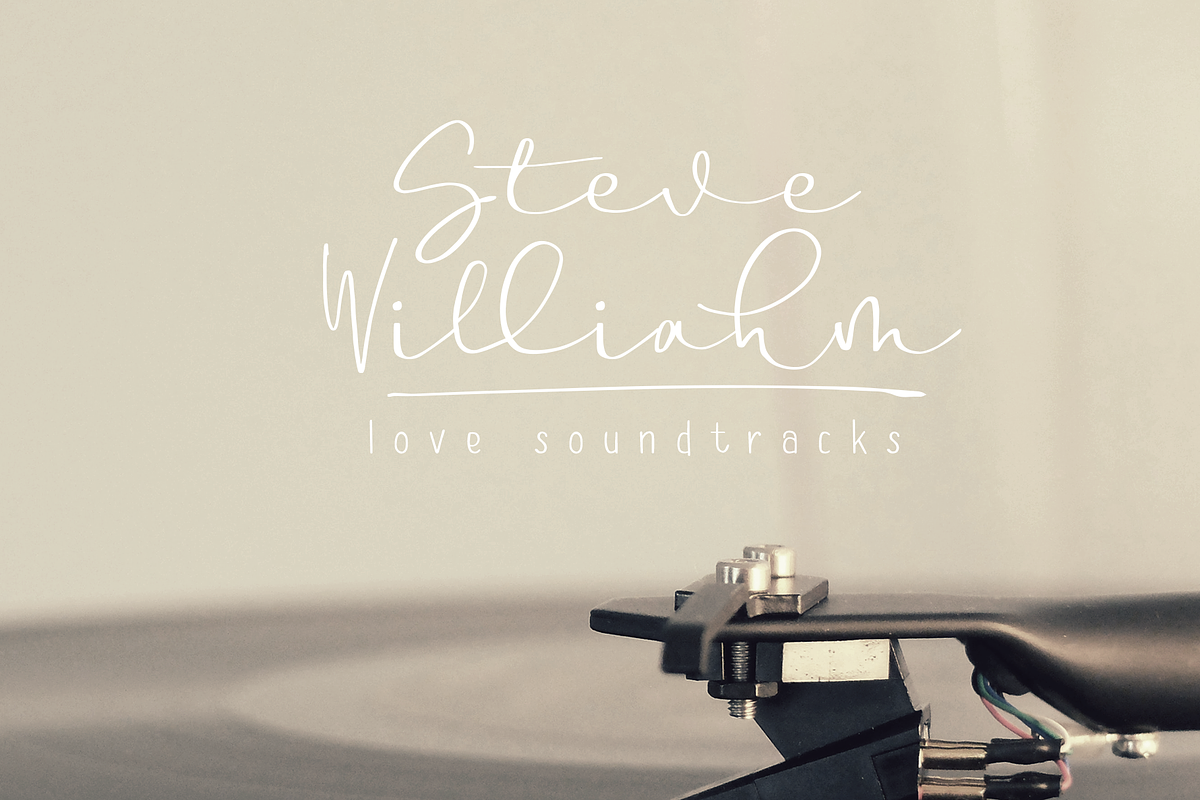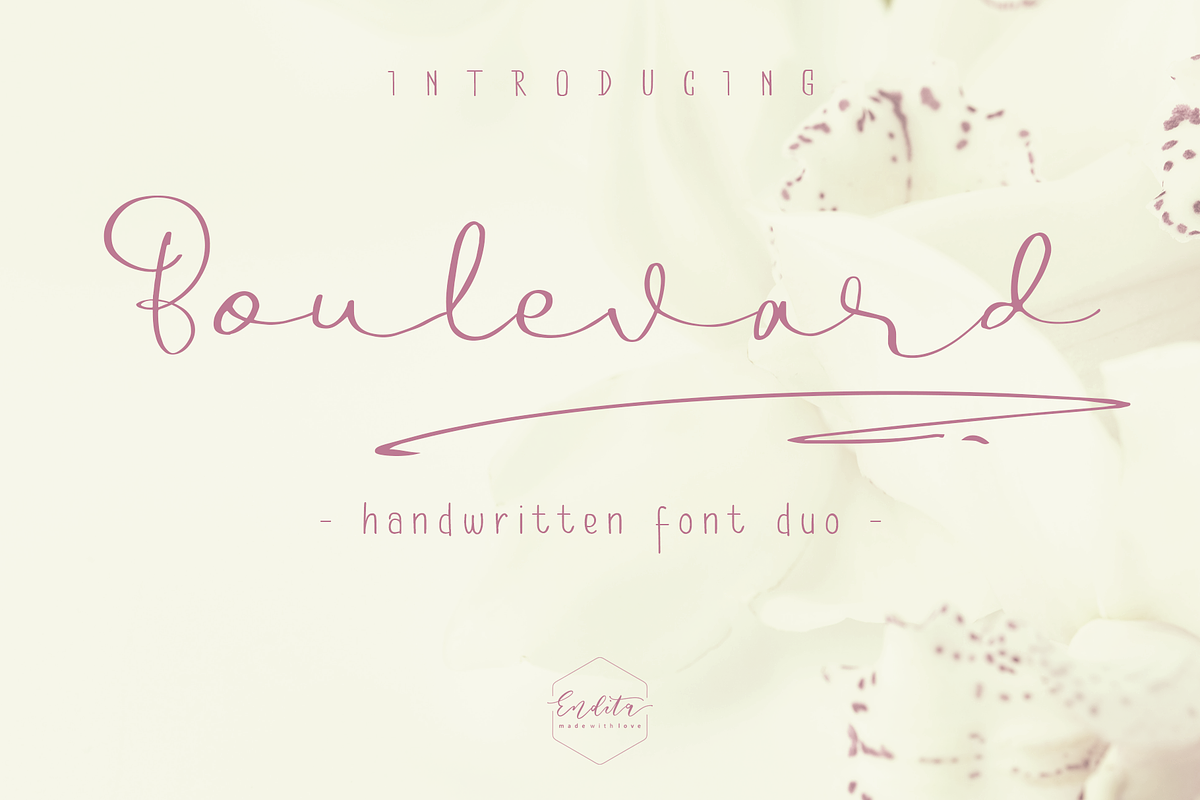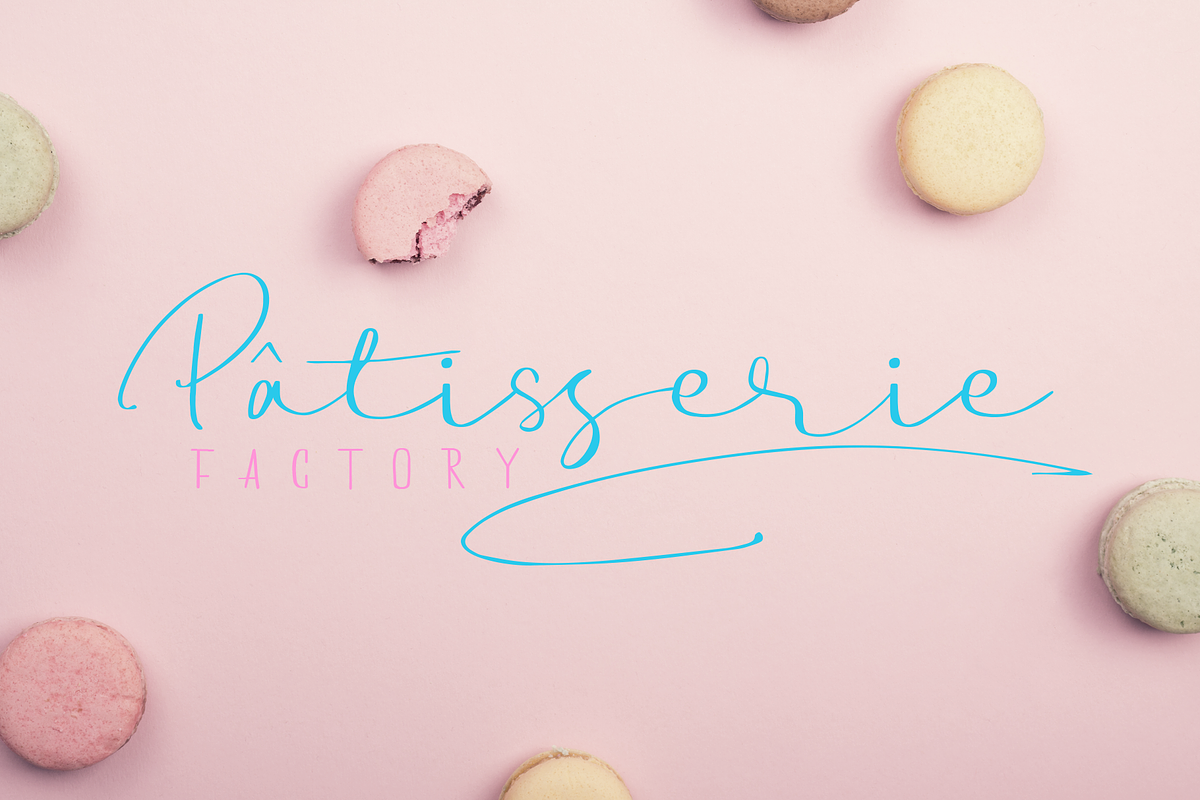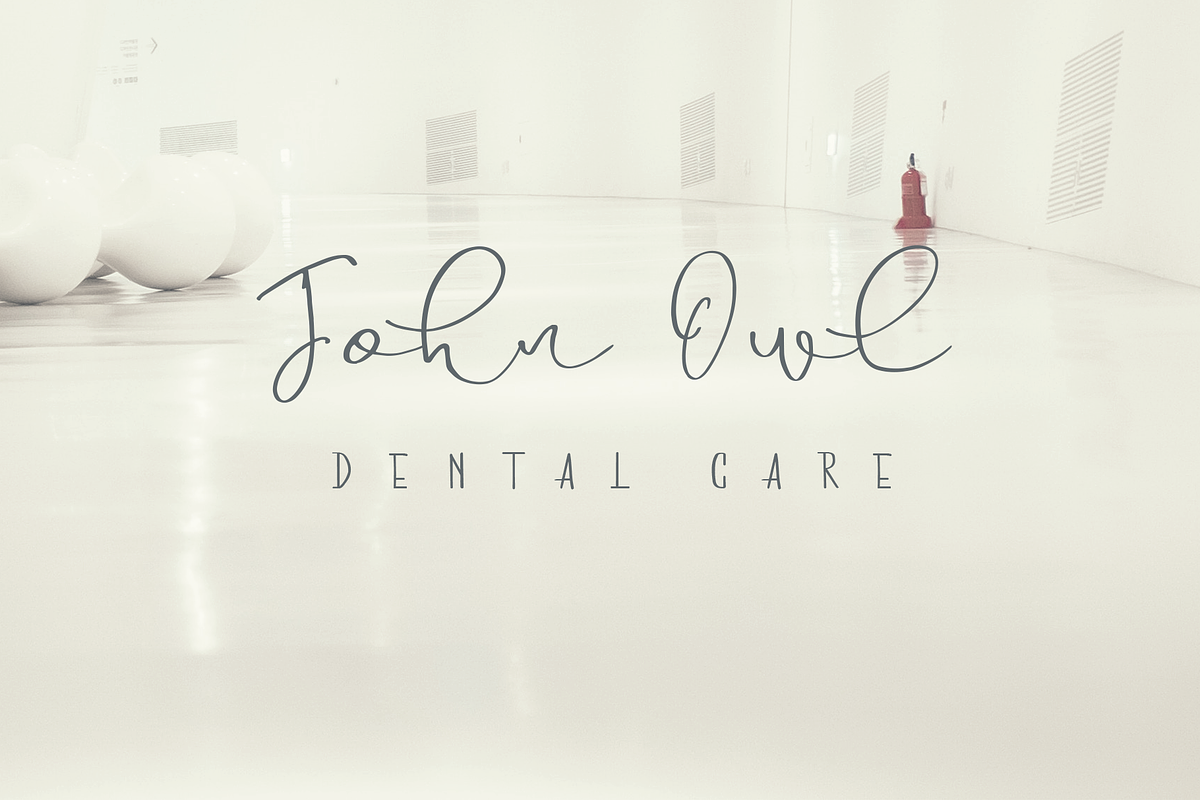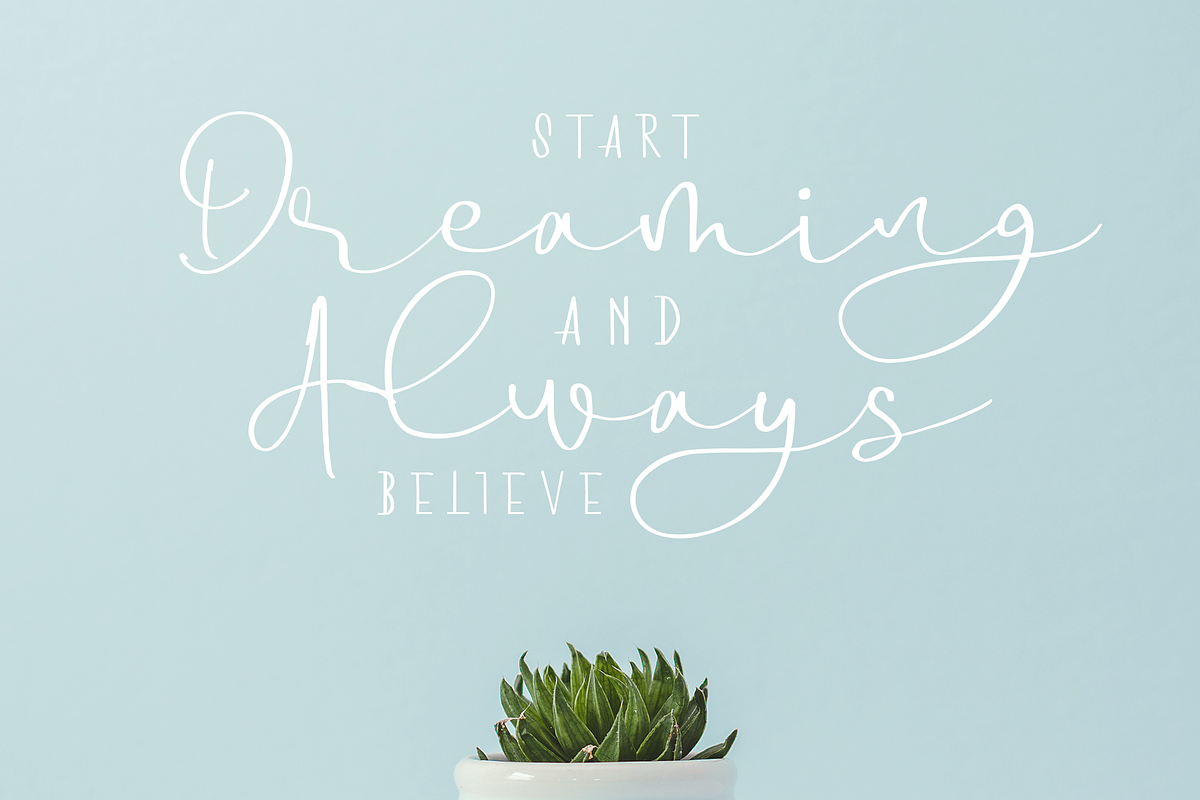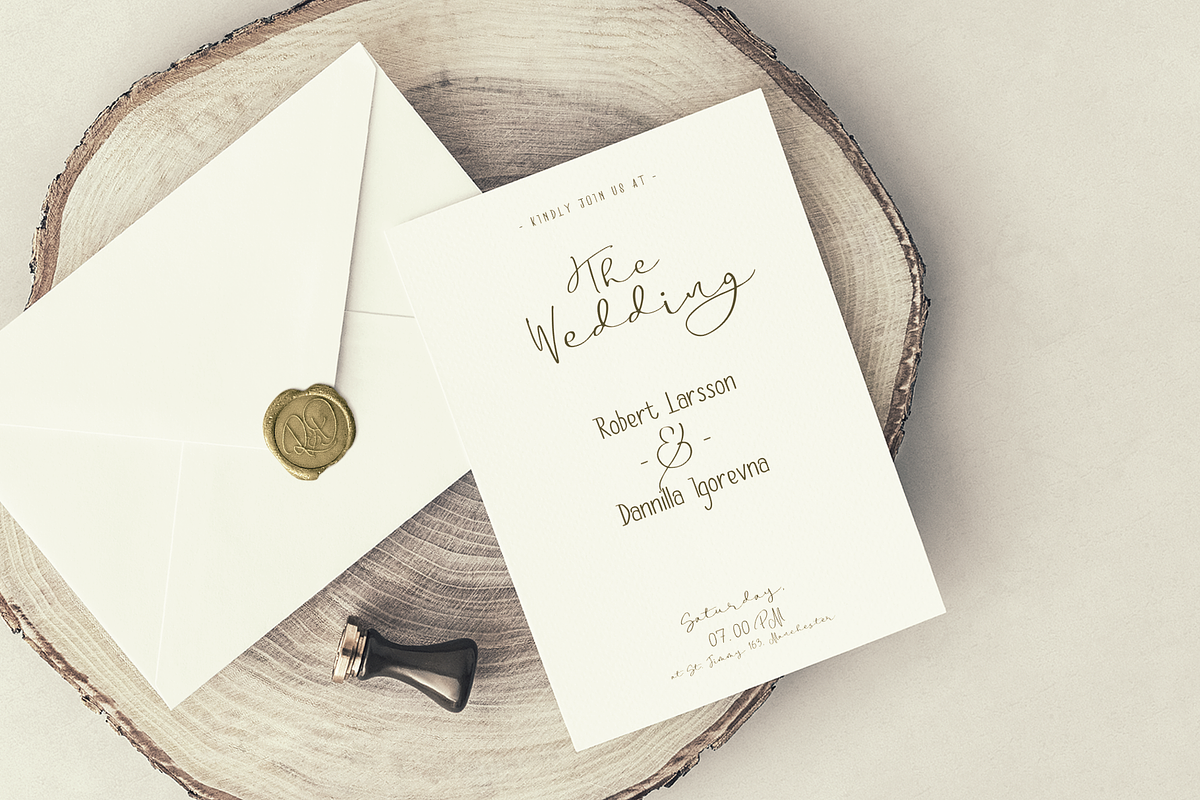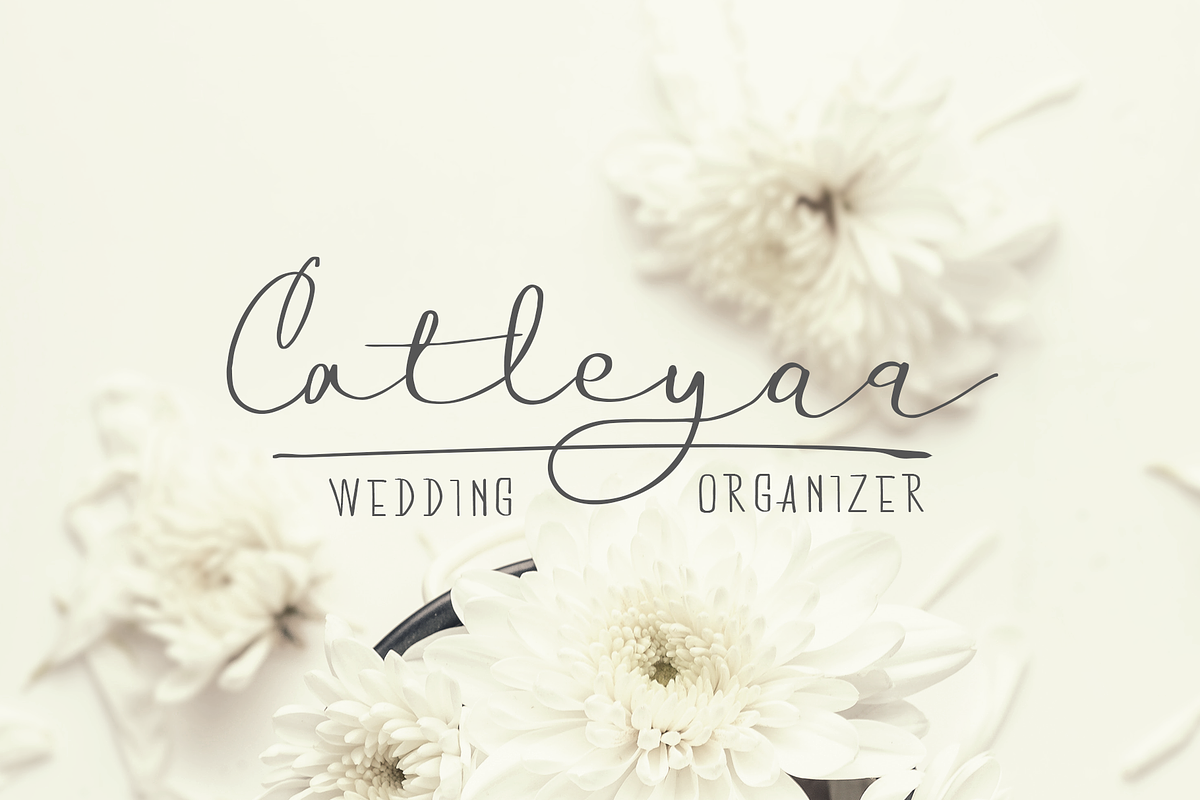
Boulevard - Handwritten Font Duo
Boulevard Font Duo is a handwritten romantic Script and hand lettered sans serif will give you a perfectly pair and suited for your beautiful wedding invitations, cards, stunning logos, quotes, even other awesome stuffs you created!
Numbers and Punctuation
International languages
Special underline swashes
For special underline swashes you can type --1, --2, --3, or --4 to display the underline after word. So fun and easy!
- Special ligatures
- Numbers and Punctuation
- International languages
- Special underline swashes